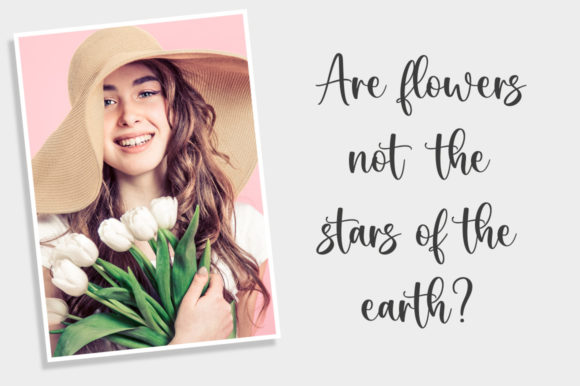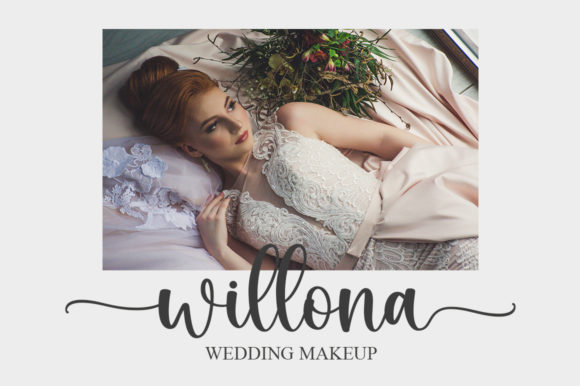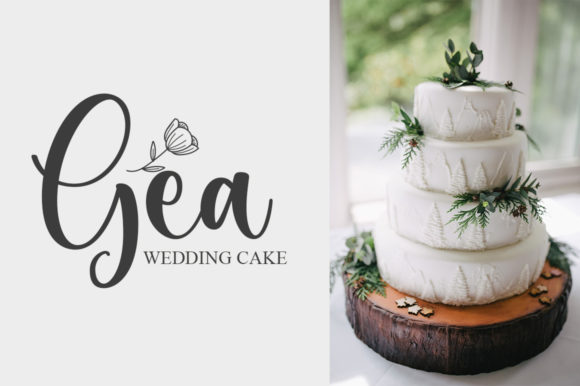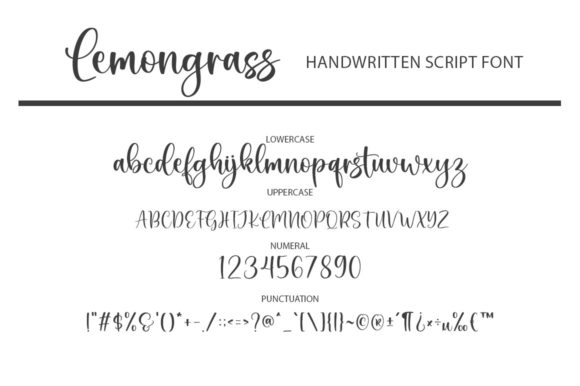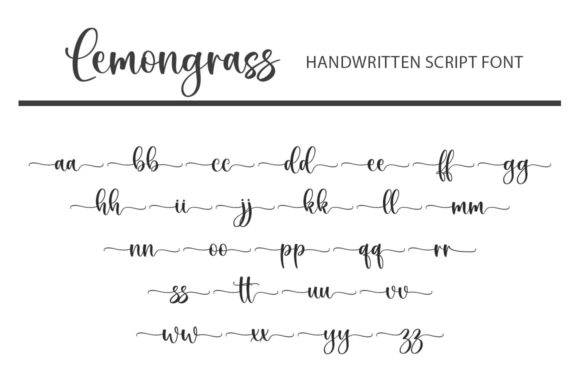
Introduction to Lemongrass Font
As a designer, there’s nothing quite like the thrill of discovering a new font that perfectly captures the essence of your creative vision. For me, that moment came when I stumbled upon the Lemongrass Font – a lovely and timeless handwritten font that instantly elevates any design project. With its unique blend of elegance and playfulness, Lemongrass Font is the perfect choice for creating eye-catching logos, branding, and quotes that truly stand out.
What sets Lemongrass Font apart from other design resources is its high quality and versatility. As a PUA-encoded font, it allows designers to access all of its glyphs and swashes with ease, making it a valuable asset for any creative project. Whether you’re working on a free download or a paid design, Lemongrass Font is sure to add a touch of sophistication and style to your work.
With its transparent background and beautiful handwriting style, Lemongrass Font is the perfect addition to any designer’s toolkit. Whether you’re a seasoned pro or just starting out, this font is sure to become a trusted companion for all your creative endeavors.
Key Features of Lemongrass Font
- High-quality design resource suitable for creative projects, offering a unique and refreshing twist on traditional typography.
- Unique characteristic: Lemongrass Font’s distinctive lemongrass-inspired design elements add a touch of elegance and sophistication to any creative project.
Honest Review: Lemongrass Font
I recently had the chance to work with the Lemongrass Font, and I must say it’s a solid addition to any design resource collection. The font’s unique blend of modern and vintage elements makes it a great fit for creative projects that require a bit of flair.
What works well: ✨ The Lemongrass Font is incredibly versatile, and its high quality design ensures that it looks great at any size. I particularly appreciate the transparent background, which makes it easy to overlay on top of images or other design elements.
Overall impression: The Lemongrass Font is a great choice for designers who want to add a bit of personality to their work. While it may not be the best option for every project, it’s definitely worth considering for creative projects that require a unique touch.
- Unique blend of modern and vintage elements
The Lemongrass Font is perfect for creating invitations, menus, and other print materials that require a touch of sophistication. It’s also great for creating digital products, such as e-books and presentations, that require a high-quality font.